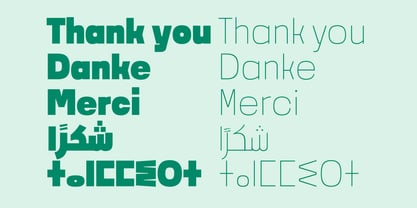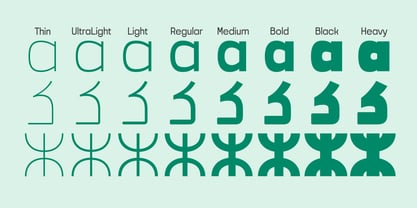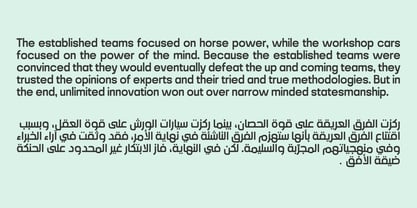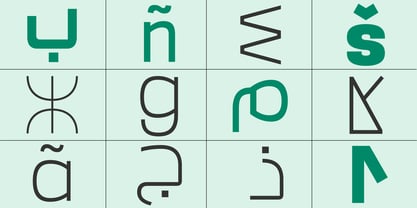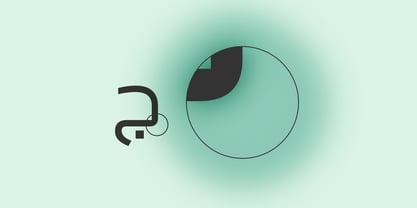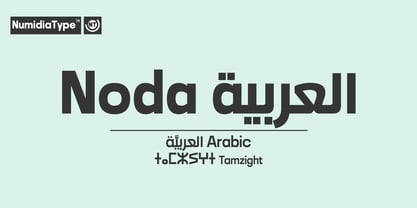
Noda Arabic
by NumidiaType
The Noda Arabic Font Family was designed by Yassine Abdi and published by NumidiaType. Noda Arabic contains 8 styles and family package options.
Noda™Arabic is a multilingual font family and supports Arabic, Tamazight, and Western Latin languages as well. It is designed in geometric shapes that simulate the Latin letters in the version available in European languages. It's the typeface that seamlessly blends geometry and modernity. It is also suitable for multilingual presentations, websites, and apps. Arabic and Tifinagh version was designed in the form of square letters, similar to the Latin letters in the previous version.